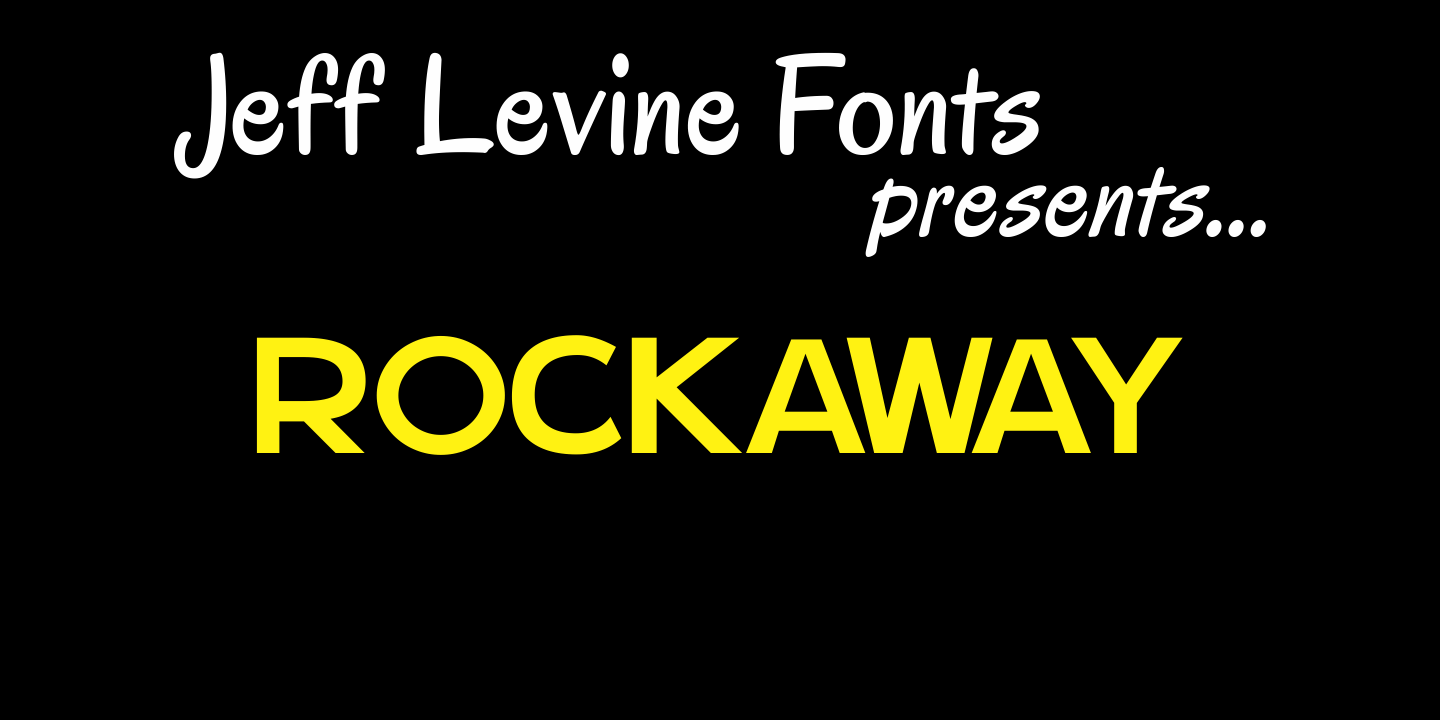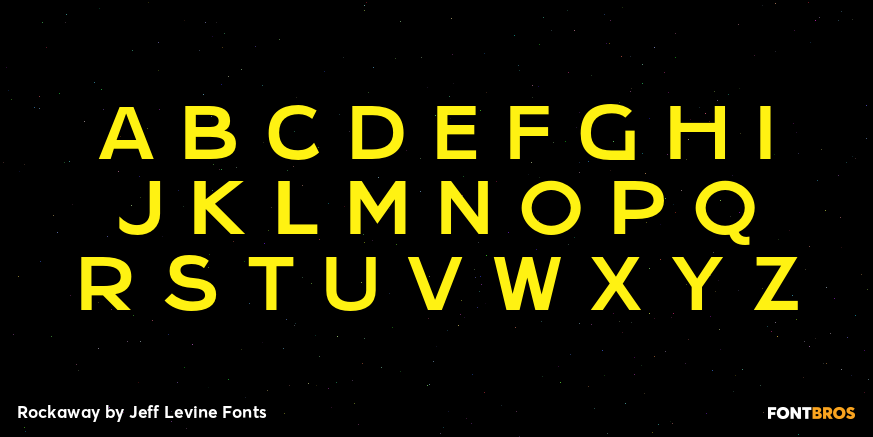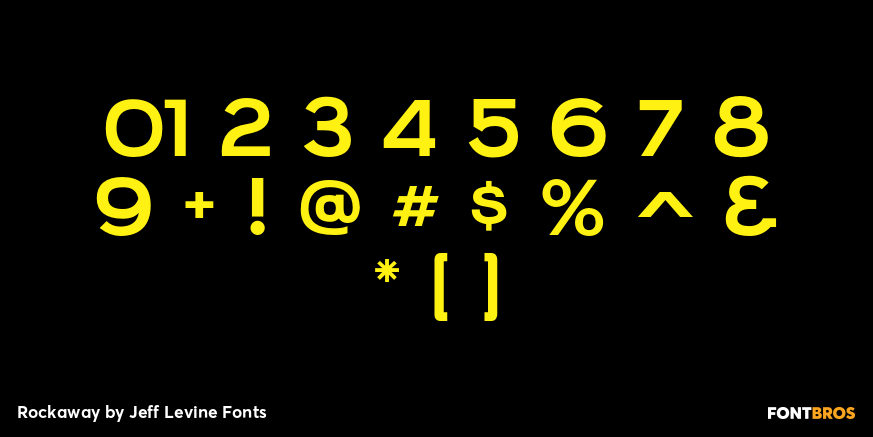
Rockaway
The look of hand lettering often breaks up the monotony of the printed page.
Rockaway JNL from Jeff Levine is a big, friendly sans serif that can give more of a human touch to your upcoming project without looking too informal.